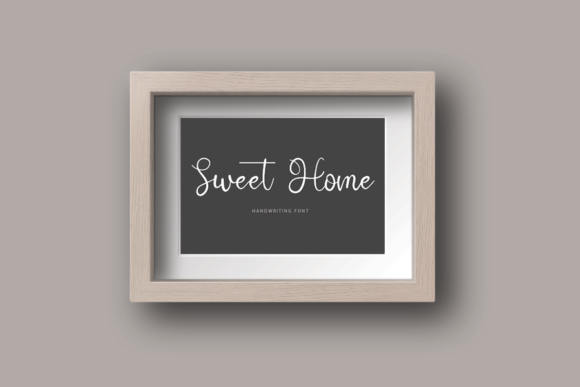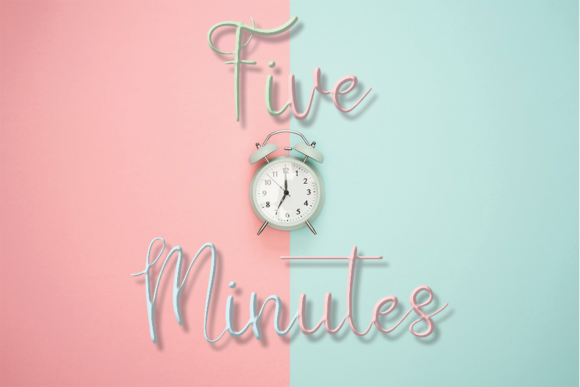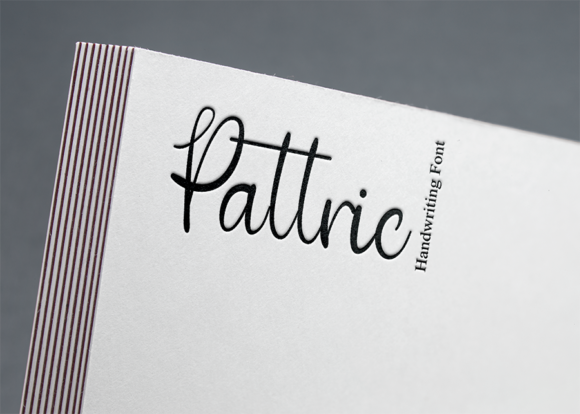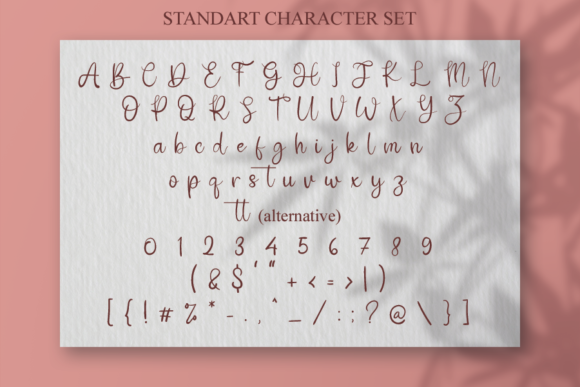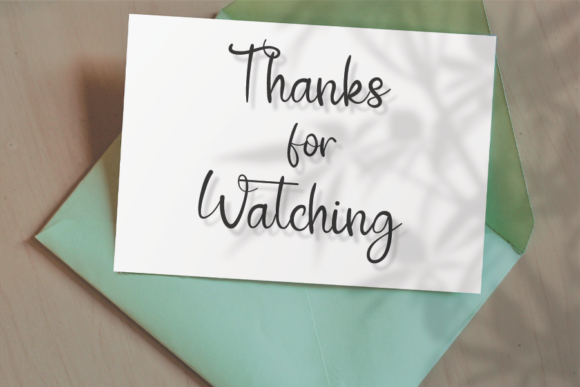
The Perfect Font for Your Special Moments: A Deep Dive into Better Day
I’ll never forget the time I was working on a wedding invitation project, and my client asked for a font that was elegant, yet playful. I scoured the internet, tried countless fonts, but nothing seemed quite right. That was until I stumbled upon Better Day, a unique and elegant handwritten font that instantly captured the essence of the occasion. In this article, I’ll share my experience with Better Day, its features, and how to make the most of it in your designs.
An Honest Review of Better Day
Better Day is a beautiful, handwritten font that looks stunning on a variety of designs, from wedding invitations to greeting cards, logos, and more. Here’s what I love about it:
- ✨ Elegant and sophisticated, yet approachable and friendly
- 💕 Beautifully crafted with a personal touch
- 🎨 Versatile and adaptable to various design styles
While Better Day is an excellent font, it’s not without its quirks:
- Experiment with OpenType features, such as ligatures and stylistic alternates, to add personality to your text
- Access OpenType features, such as glyphs and swashes, to enhance your design
The Story Behind Better Day
Better Day was designed with love and care by a talented type designer who aimed to create a font that captures the essence of special moments. The designer’s inspiration came from the joy of everyday life, the beauty of handwritten letters, and the elegance of fine typography.
| Font Name | Better Day Font |
| Author | erik studio |
| What makes Better Day unique? | Better Day’s unique blend of elegance and playfulness makes it perfect for a variety of designs, from formal events to personal projects. |
| Is Better Day suitable for body text? | While Better Day is highly legible, it’s best suited for headings, titles, and short paragraphs. For longer body text, a more traditional font might be more suitable. |